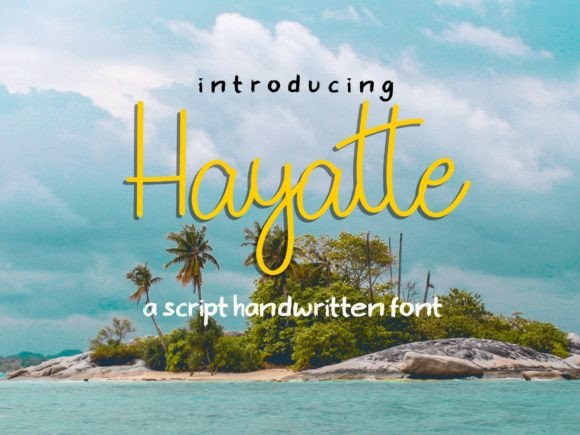
Introducing Hayatte Font - the epitome of joy and creativity for your designs!
This enchanting script handwriting font is the perfect choice for crafting magical invitations, enchanting logos, and projects brimming with imagination. With its playful and stylish curves, Hayatte Font will bring a touch of wonder to your designs.
Let your imagination soar as you create captivating T-shirts for your little ones, adorning them with playful messages and colorful designs. Unleash your creativity and design unique postcards that carry your heartfelt greetings and messages of love. The possibilities are endless!
Hayatte Font is not just a font; it's an invitation to embark on a joyful and imaginative journey. Its user-friendly nature makes it perfect for designers of all levels, from seasoned veterans to enthusiastic beginners. Embrace the boundless creativity that awaits you with Hayatte Font.
Let Hayatte Font ignite your imagination and transform your designs into enchanting masterpieces. Every stroke, every curve, and every letter is designed to evoke joy, inspiration, and endless creative possibilities.